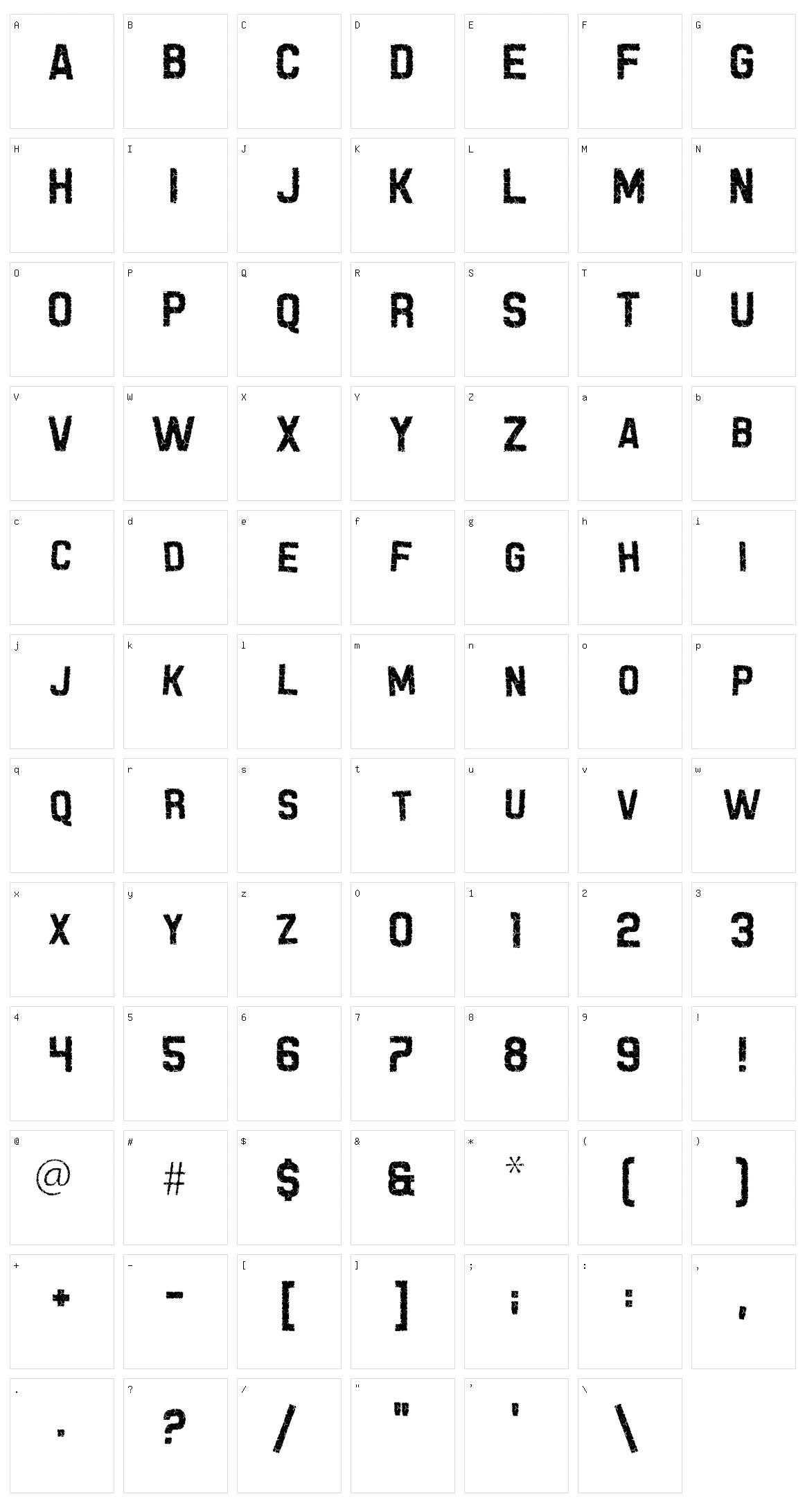
The free font Grunge Tank is carefully designed by Chequered Ink, showcasing a thoughtful balance of creativity and usability and falls under the Eroded font style. When you download the ZIP file, it contains only 120.37 KB of font files, making it lightweight and quick to download. Please review the license details below to understand permitted usage and distribution rights. If license information is not available, we recommend using this font for personal projects only or contacting the author directly for commercial usage permissions.